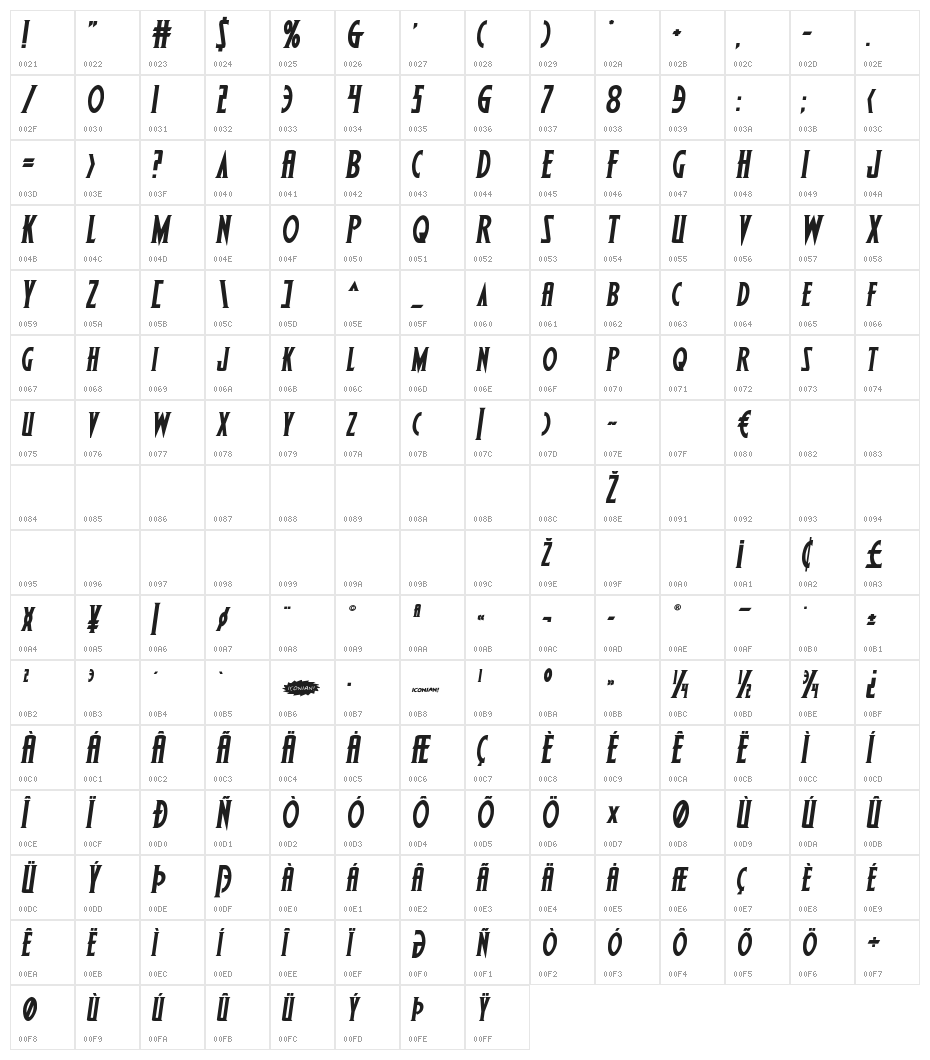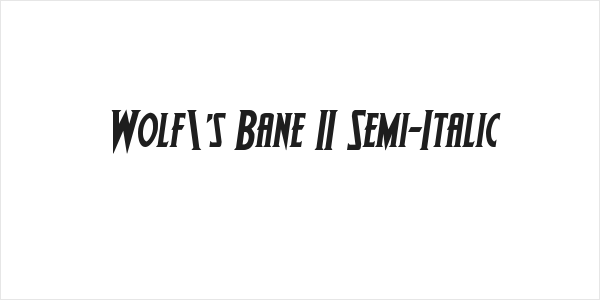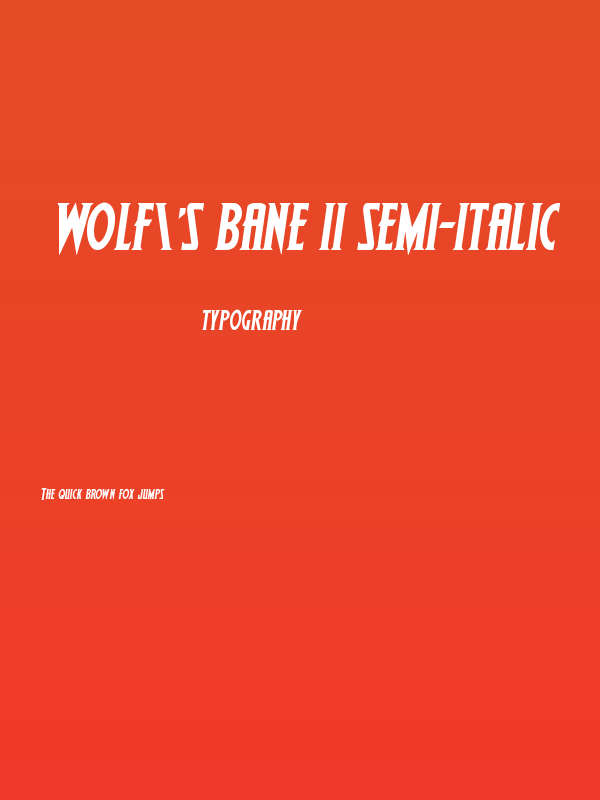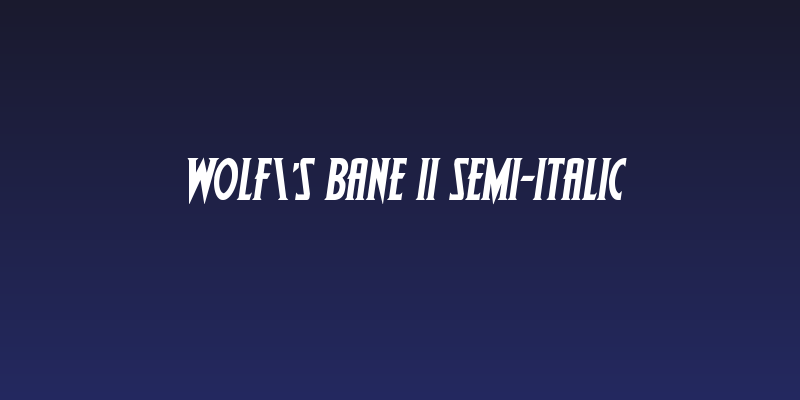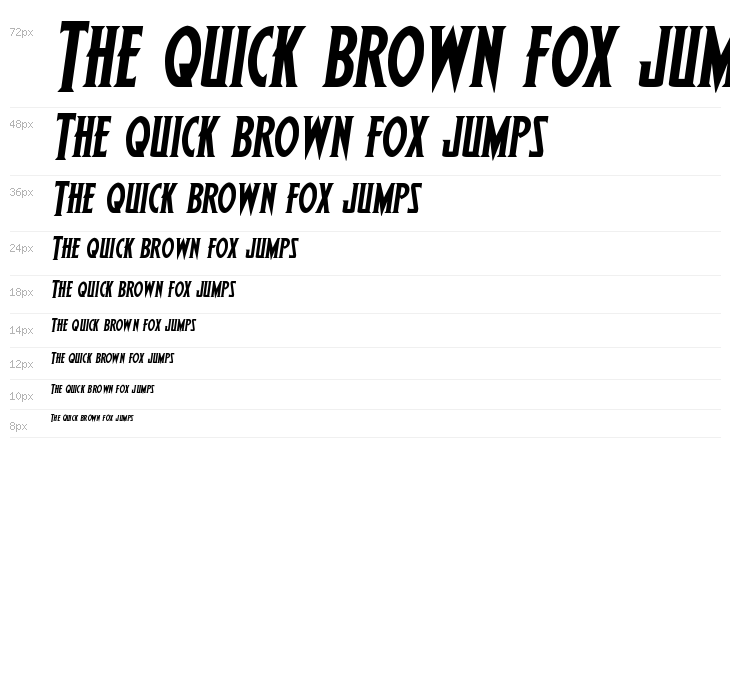
Wolf's Bane II Semi-Italic Font
Wolf's Bane II Semi-Italic Description
This font exhibits a bold and dynamic style with a semi-italic slant, giving it a sense of motion and energy. The characters are sharply defined with angular cuts and a slightly condensed form, enhancing its dramatic appearance. The uppercase and lowercase letters maintain a consistent style, with the uppercase being particularly striking due to their tall and narrow structure. The numbers follow the same stylistic cues, ensuring uniformity across all characters. Special characters are designed with the same boldness and angularity, making them stand out. The overall design is suitable for projects that require a strong visual impact and a modern, edgy feel.